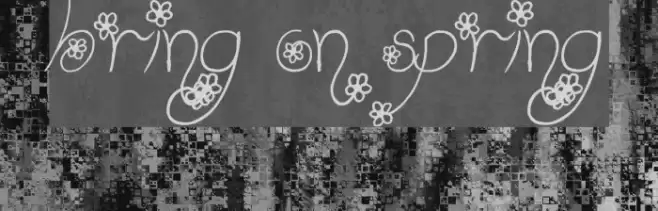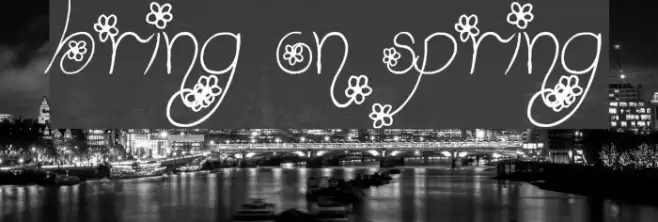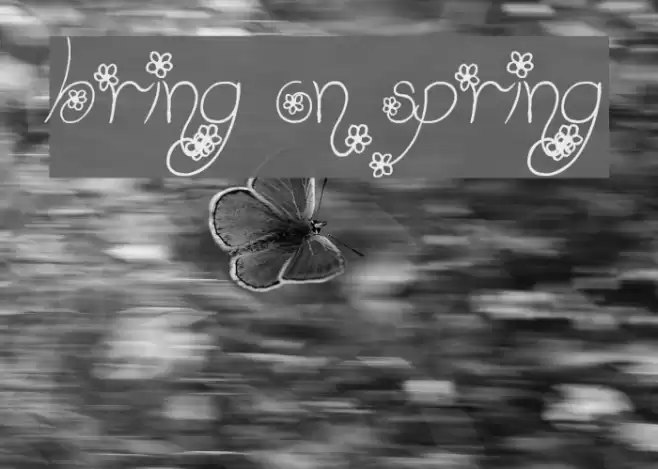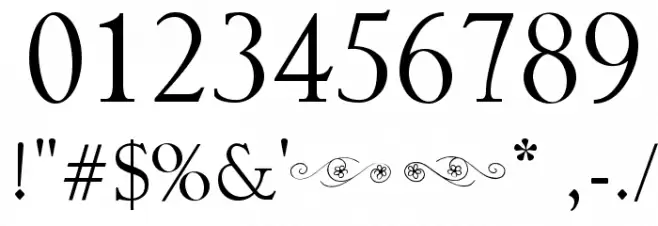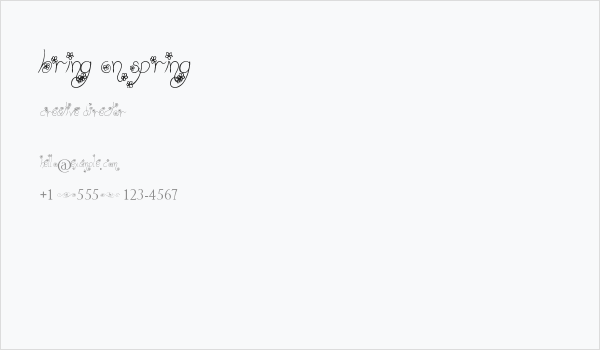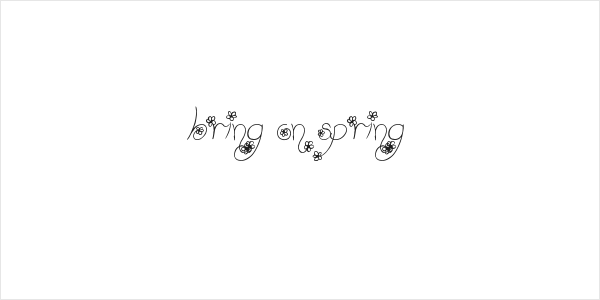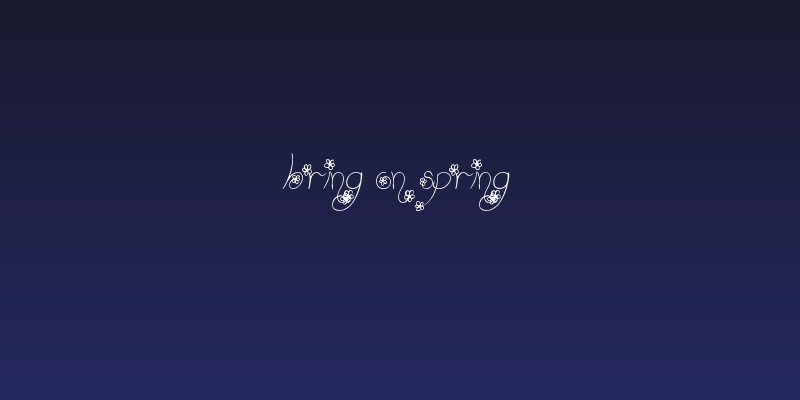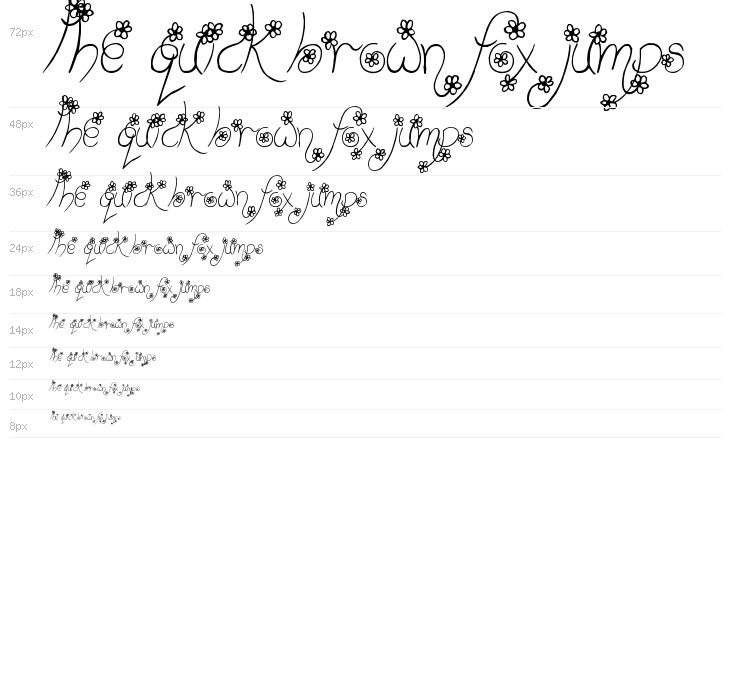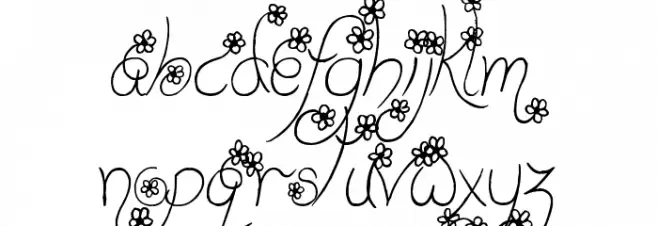
Bring on Spring Font
Bring on Spring Description
This whimsical font features a playful and decorative style, with each letter adorned with charming floral elements. The uppercase and lowercase letters are crafted with delicate curves and flourishes, giving a sense of movement and liveliness. The numbers maintain a clean and elegant appearance, contrasting with the decorative nature of the alphabet. Special characters are included, with some featuring additional embellishments that enhance the overall theme. This font is perfect for projects that require a touch of nature and creativity, such as spring-themed invitations, greeting cards, or artistic posters.
A playful, floral-decorated font with whimsical curves and elegant numbers from Decorative fonts.
- Proposed Projects: Ideal for spring-themed invitations, greeting cards, artistic posters, and nature-inspired branding.
- Use Case: Headlines, Artistic projects, Invitations